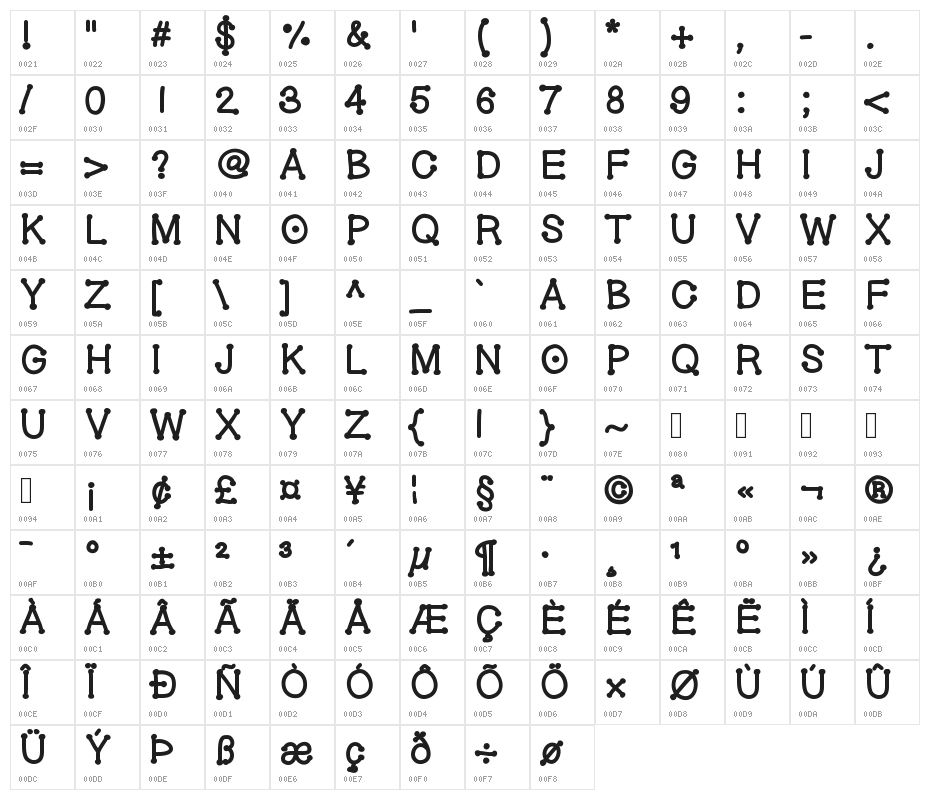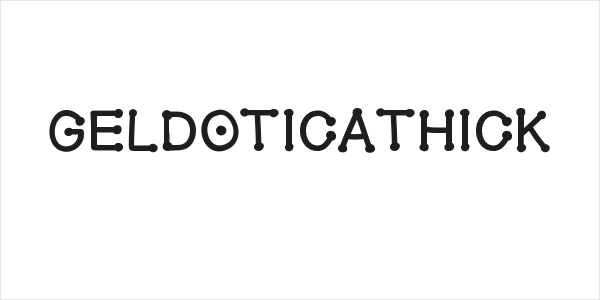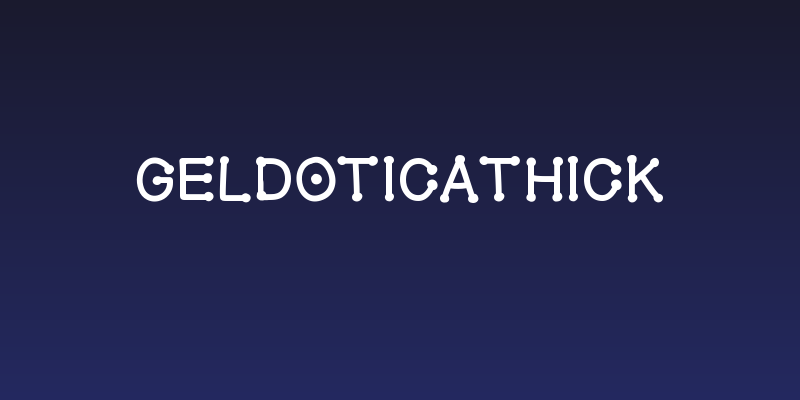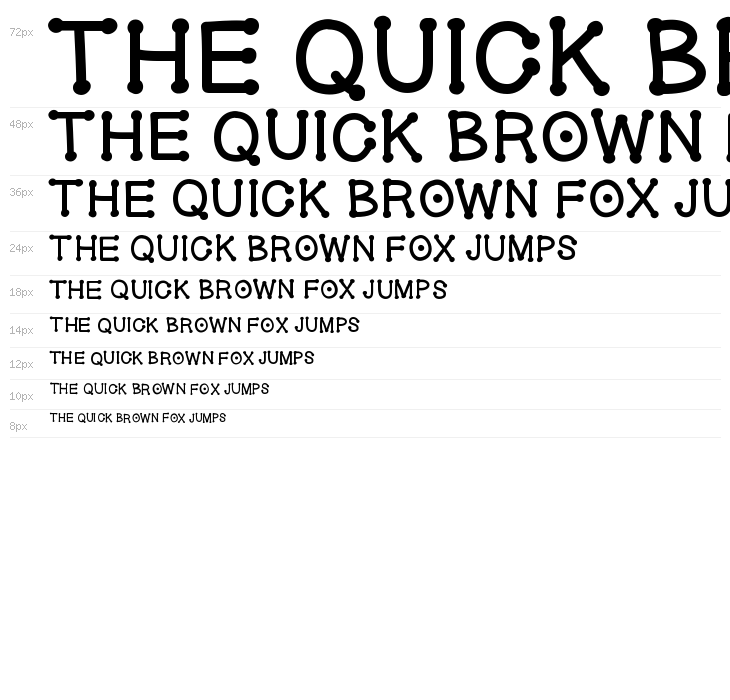
GelDoticaThick Font
GelDoticaThick Description
This font features a playful and bold design with rounded edges and a bubbly appearance. The characters are thick and have a uniform stroke width, giving them a strong presence on the page. The rounded terminals and consistent weight throughout the alphabet create a cohesive and friendly look. The numbers and special characters maintain the same playful style, making the font suitable for a variety of creative applications. Its unique style stands out, making it ideal for projects that require a fun and approachable aesthetic.
| Proposed Projects | Ideal for children's books, playful branding, posters, and creative digital content. |